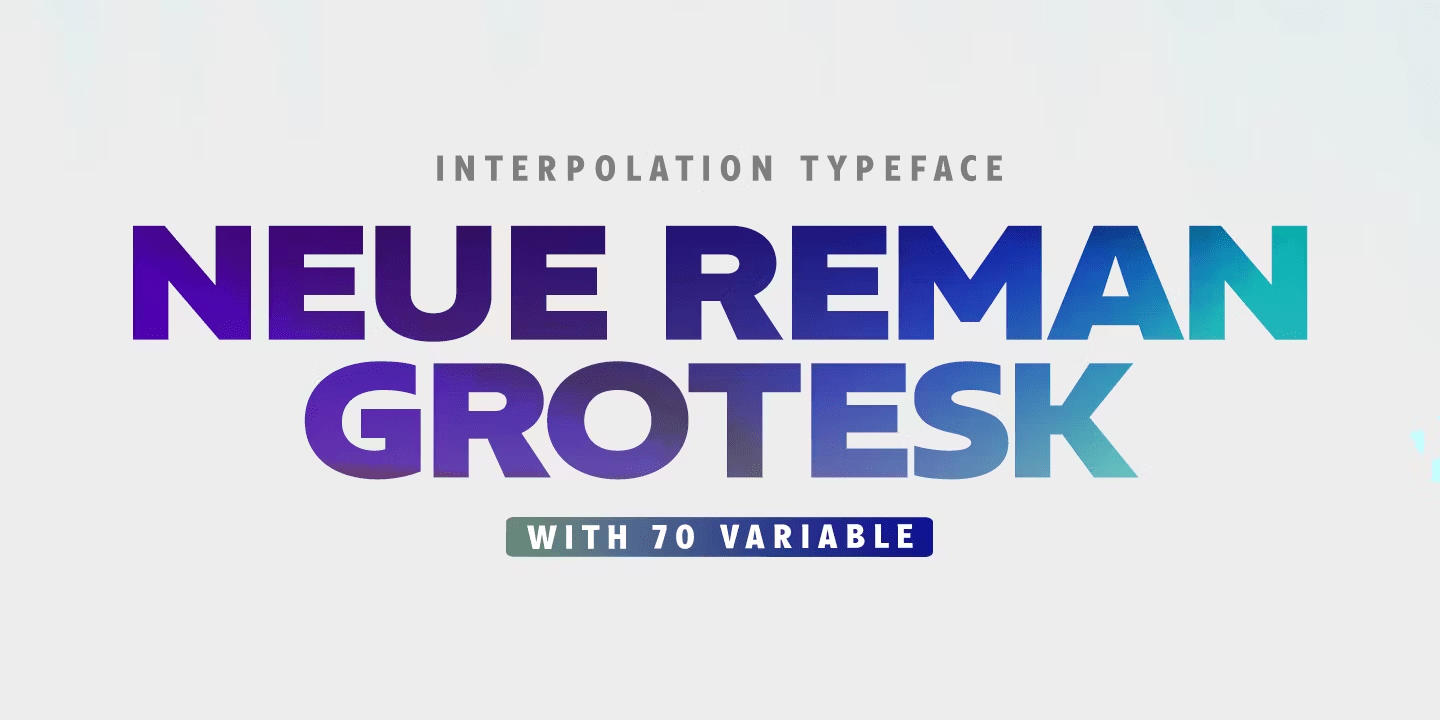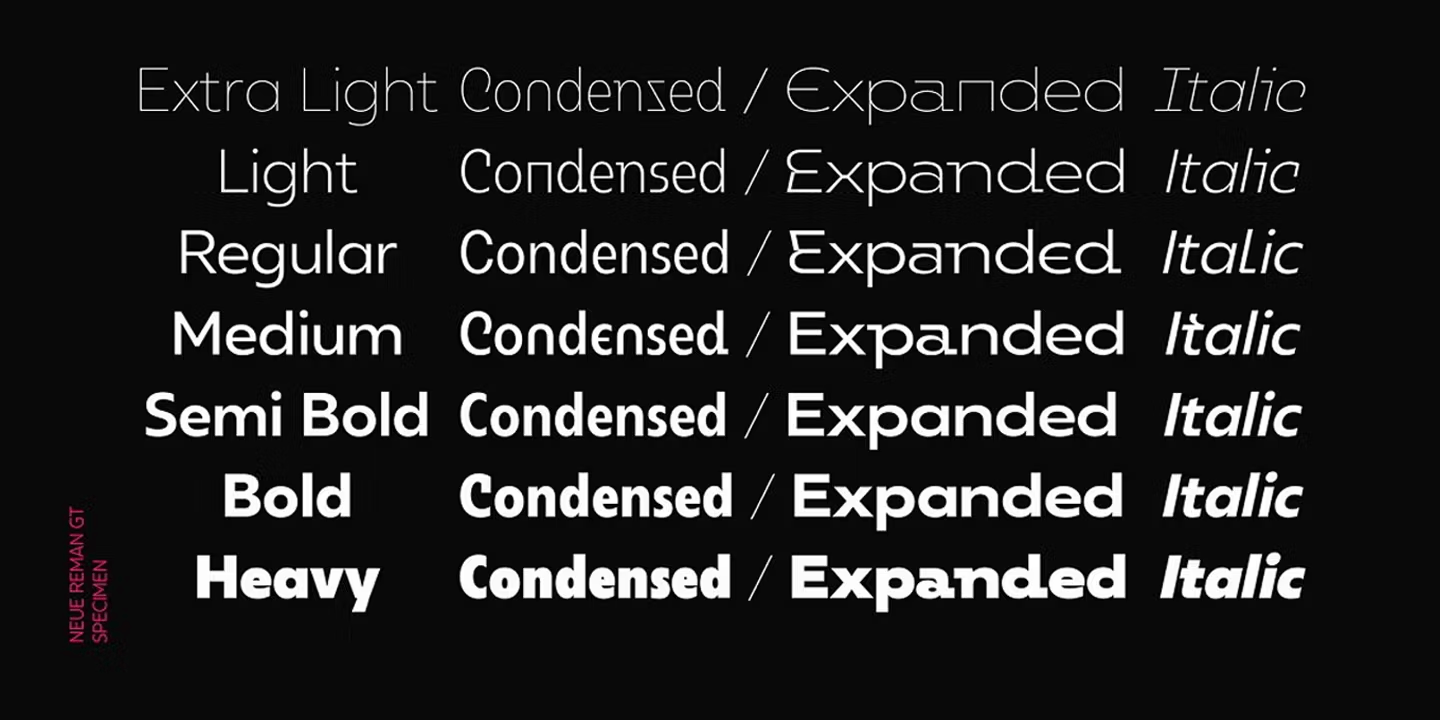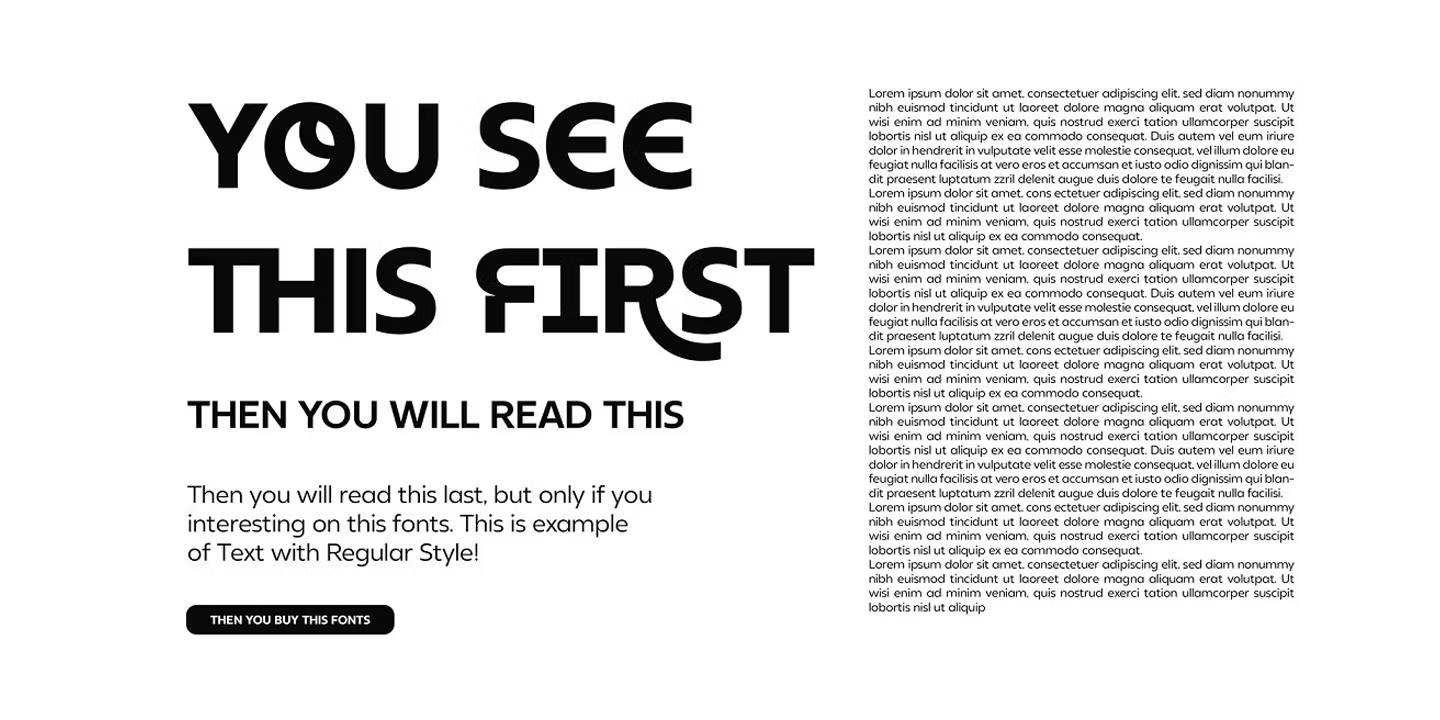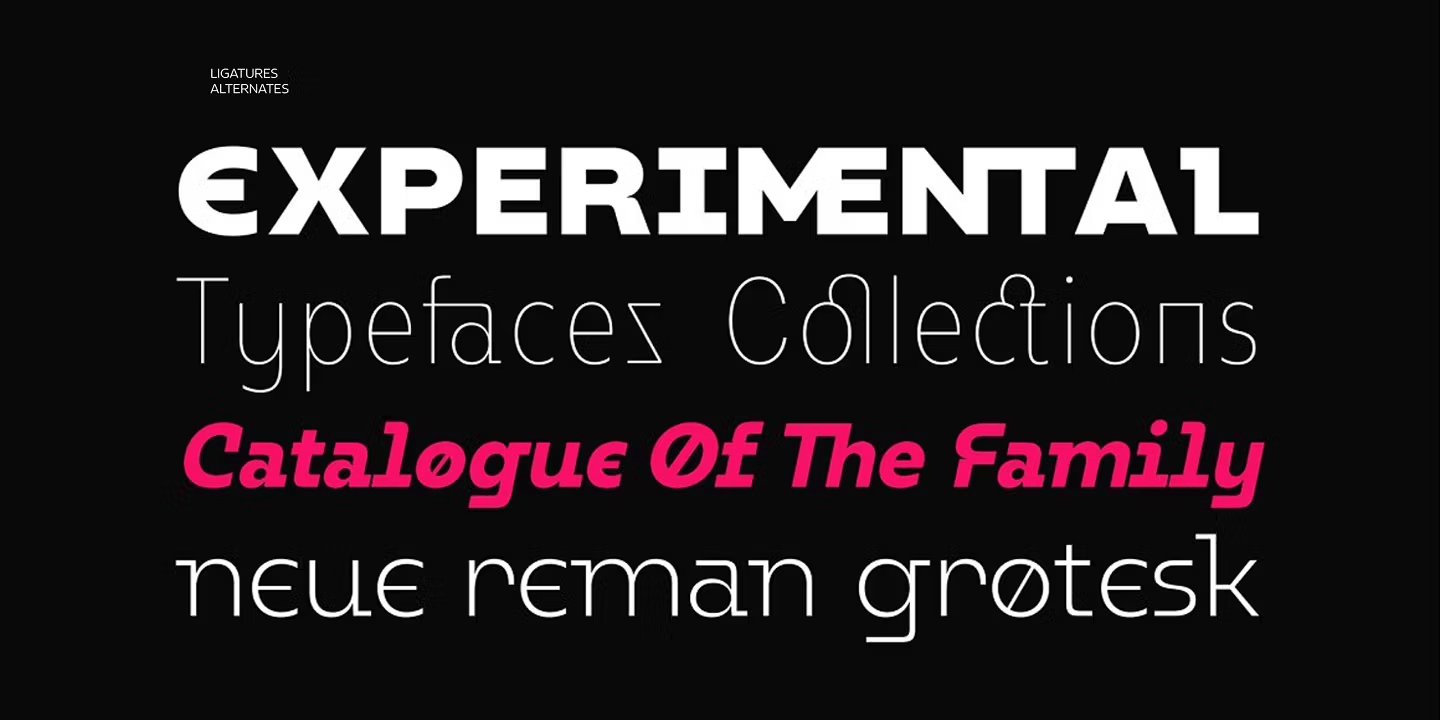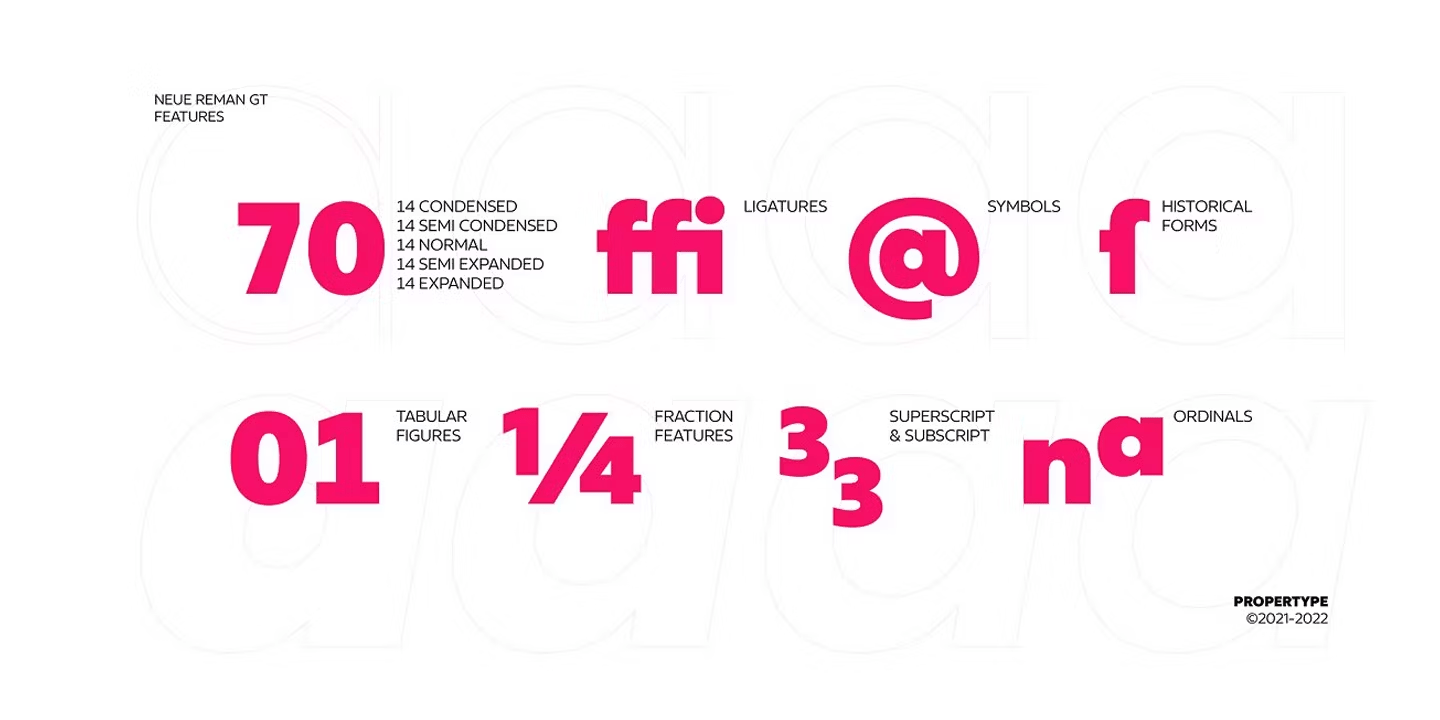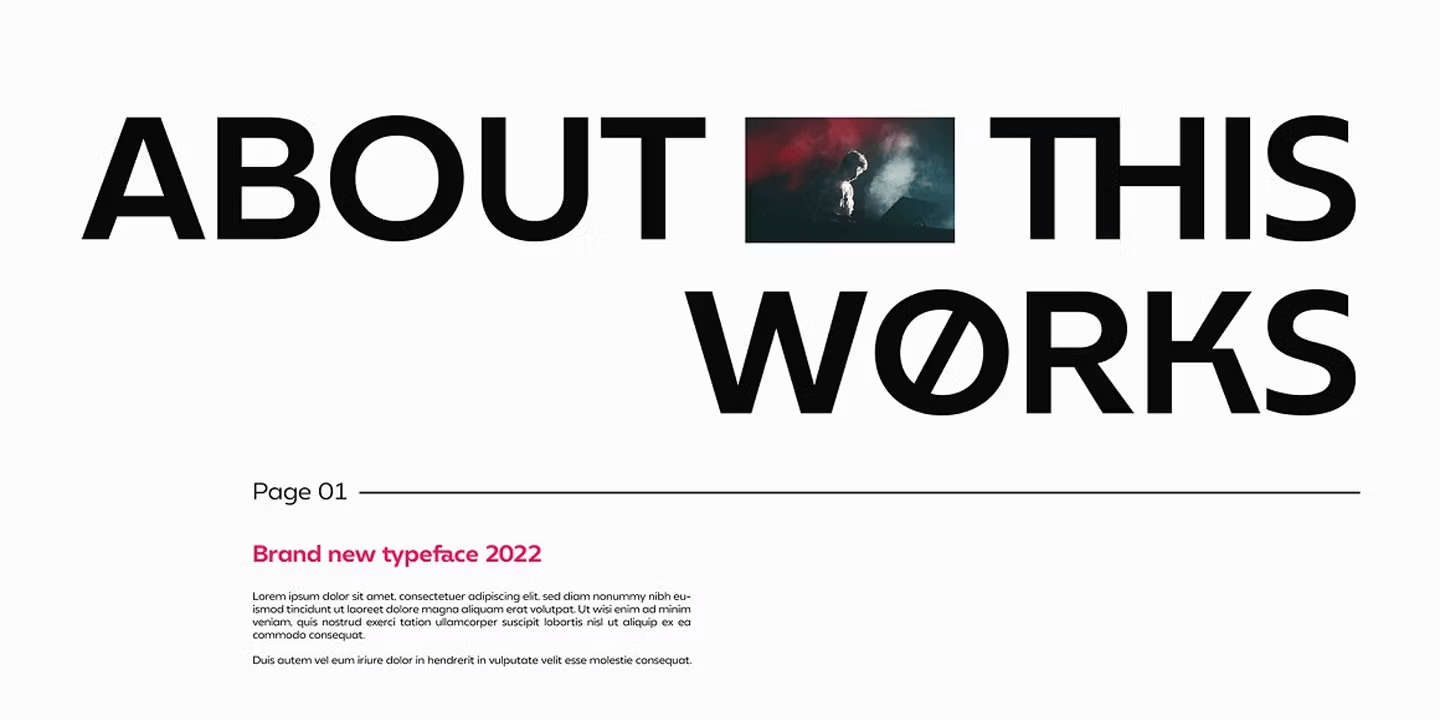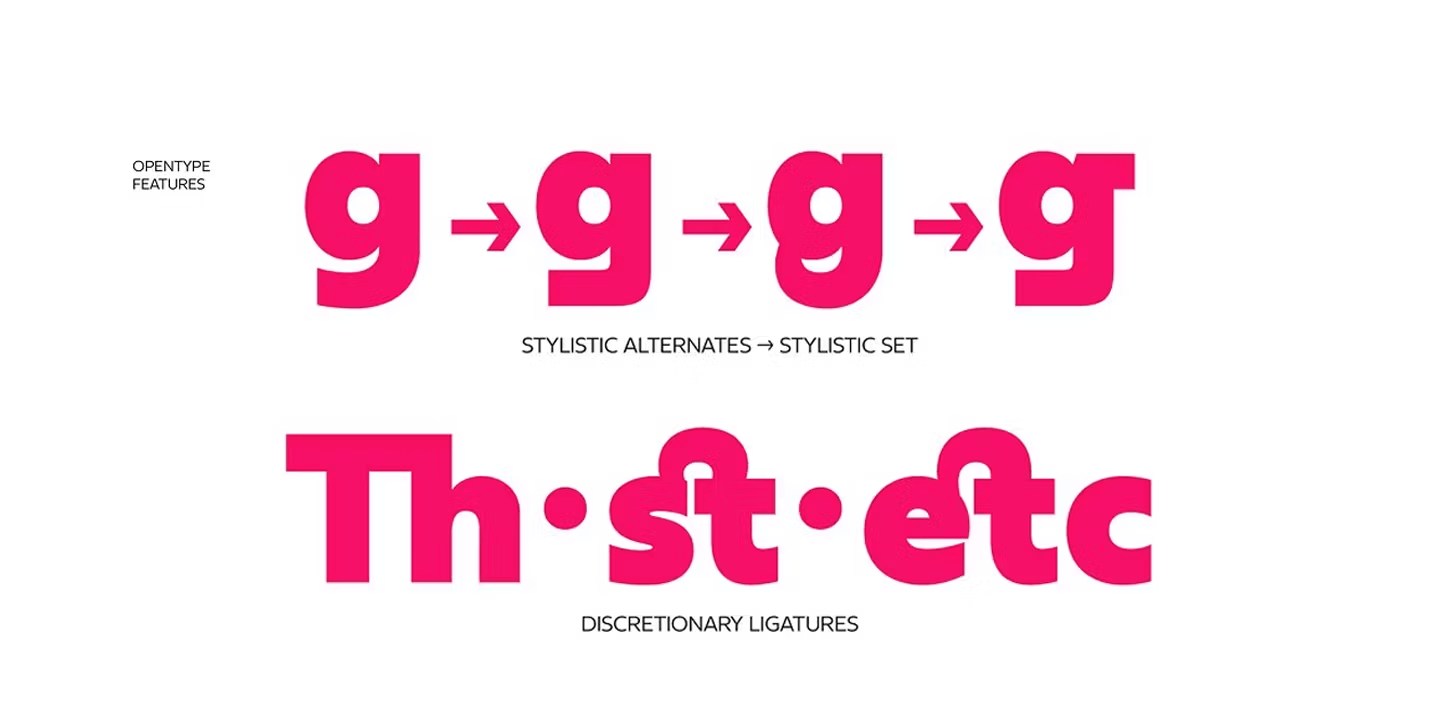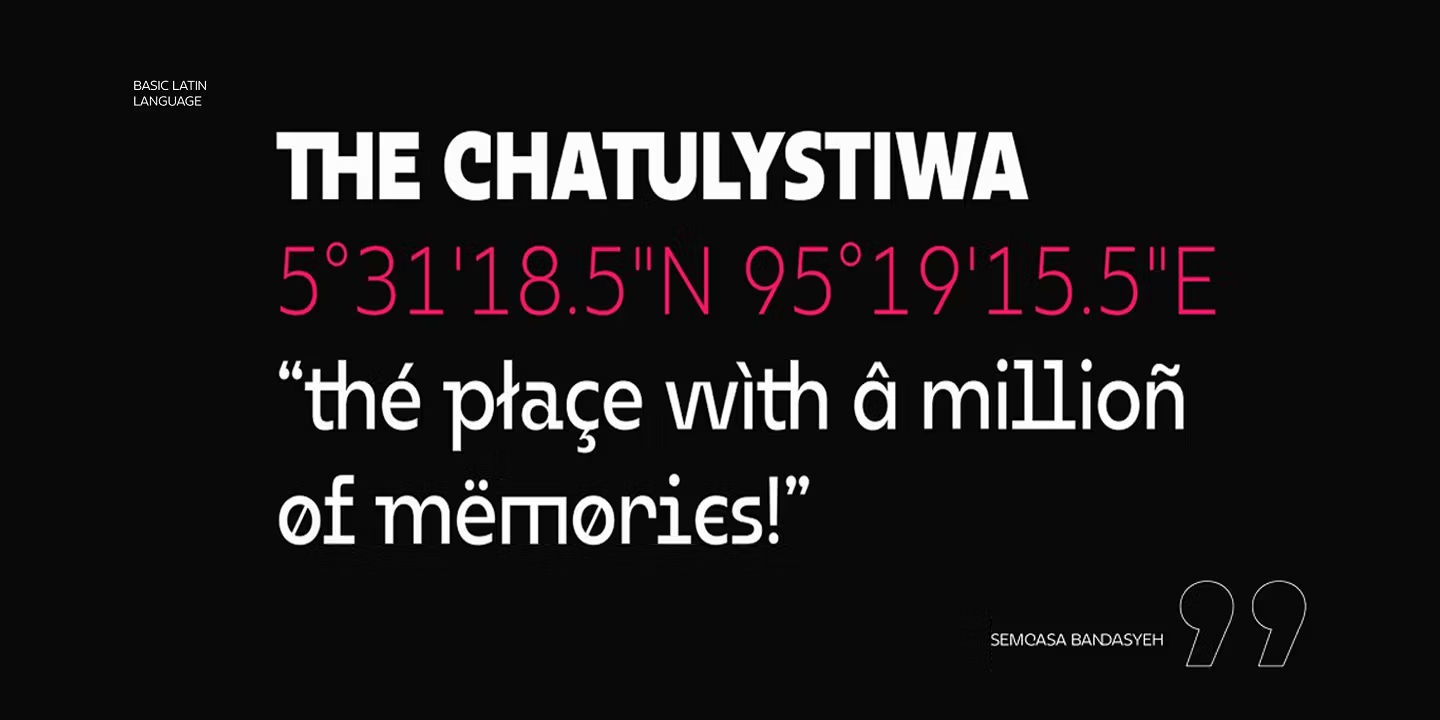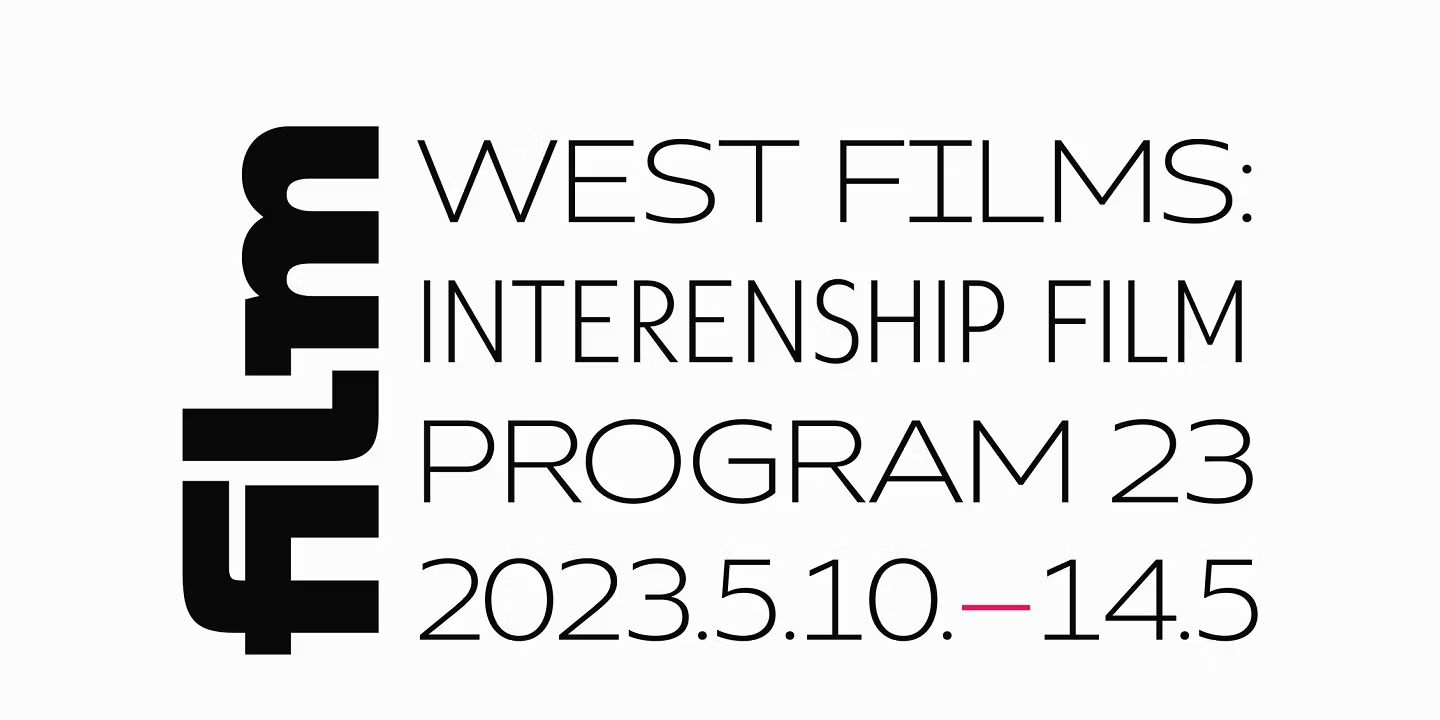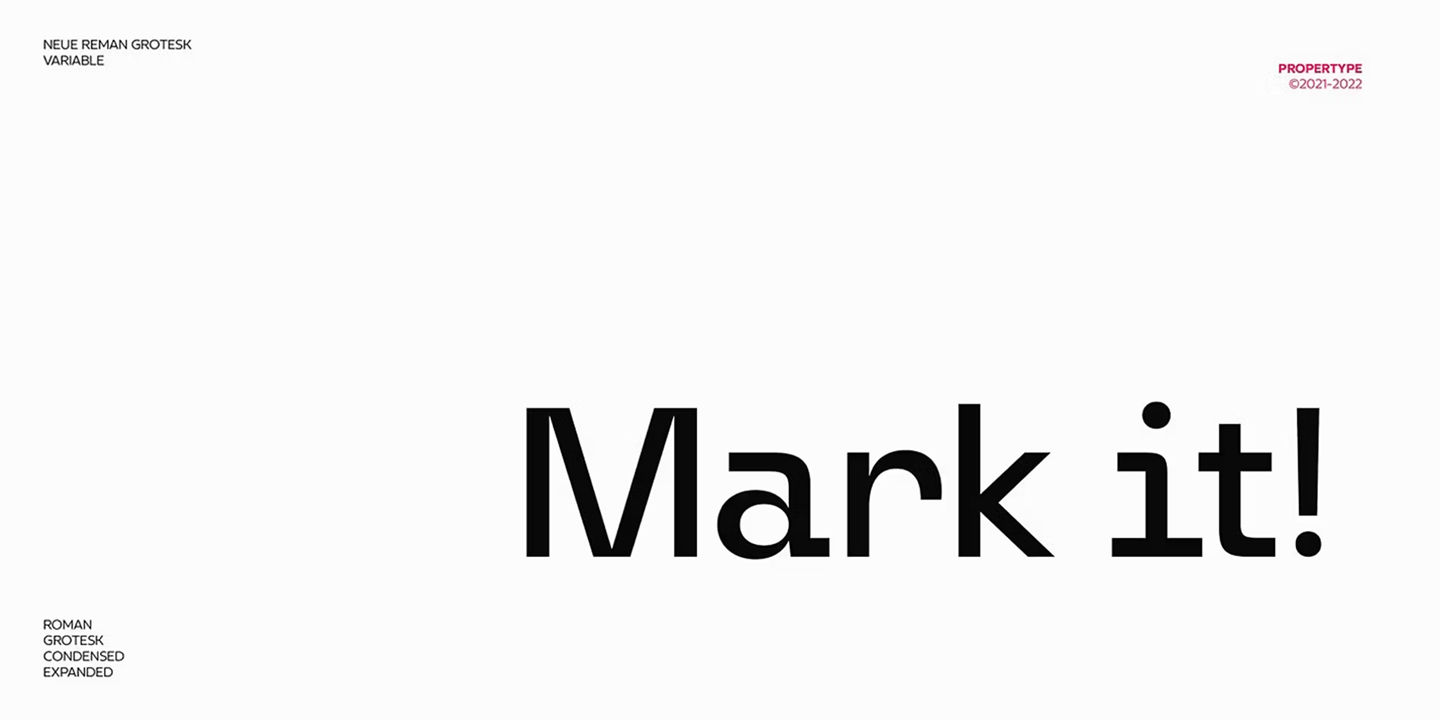
Neue Reman Grotesk
Neue Reman Grotesk has 70 font styles in total family + 1 Variable.
This typeface is designed to be used very practically. Each style can be changed easily. Has a variety of alternative letters that can be selected to make typography designs more attractive.
The family comes in 7 weights with matching italics + Variable Font File and includes multilingual latin pro characters.
- Extra Light - Condensed - Expanded - Slanted Italic
- Light - Condensed - Expanded - Slanted Italic
- Regular - Condensed - Expanded - Slanted Italic
- Medium - Condensed - Expanded - Slanted Italic
- Semi Bold - Condensed - Expanded - Slanted Italic
- Bold - Condensed - Expanded - Slanted Italic
- Heavy - Condensed - Expanded - Slanted Italic
Neue Reman Grotesk contains 750 glyphs, a Latin Pro Fonts. This is the second version of Neue Reman Family. Complete with Stylistic Alternates, Stylistic Set, Caps Swashes Letter, Standard Ligatures, Discretionary Ligatures, Tabular Figures, Proportional Figures, Superscript, Subscript, Scientific Inferiors, Fractions, Ordinals, Arrows and a variety of figures and fractions. Neue Reman typeface suitable to use in multipurpose projects such as on websites, systems, printing, embedding, servers, screens, display, digital-ads, branding, logos, titles, headlines, teks, and everything else.